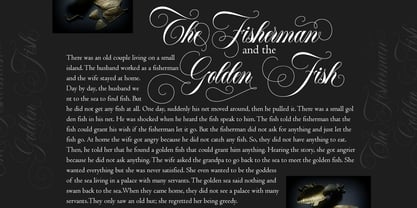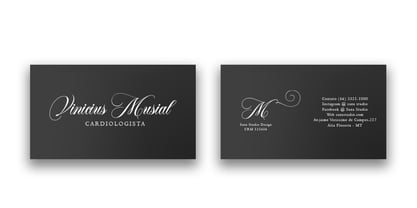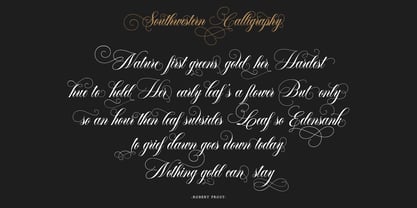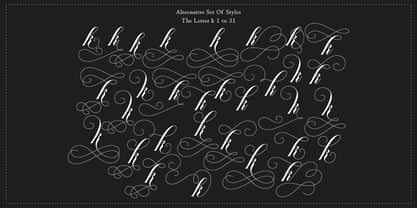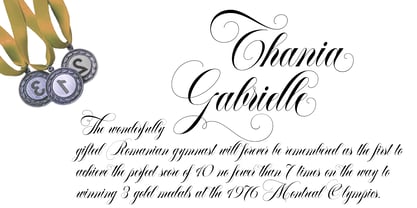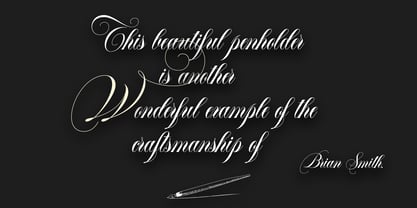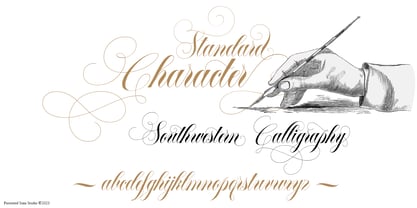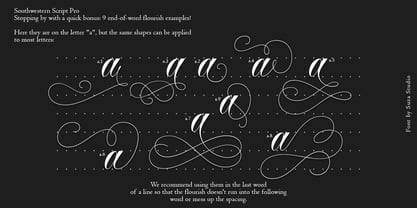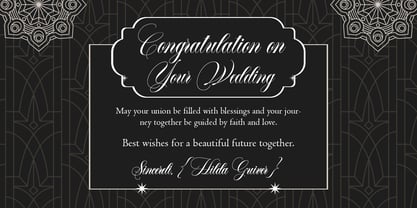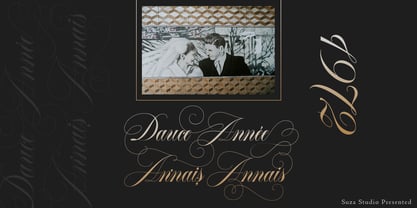
Southwestern Calligraphy Pro
by Suza Studio
The Southwestern Calligraphy Pro Font Family was designed by Zikrillah and published by Suza Studio. Southwestern Calligraphy Pro contains 2 styles and family package options. More about this family
The Southwestern font is a calligraphy font designed with an elegant and artistic style. With 823 glyphs and 437 Alternatives, this font has a variety of LatinPro characters and symbols, allowing users to write in various languages ​​and add decorative elements to the text. This font combines traditional elements with a modern touch, giving a natural and organic impression to each letter.
The characteristics of the Southwestern font are smooth curved lines and ornamental details that give a bohemian or rustic impression, as if depicting the beauty of western nature or a quiet rural lifestyle. This font is often used in graphic design for projects that require a vintage touch, such as wedding invitations, logos, or artwork.
The 823 glyphs include uppercase and lowercase letters, numbers, punctuation marks, and a number of decorative symbols, so this font can be used very flexibly for various design purposes.
Designers: Zikrillah
Foundry: Suza Studio